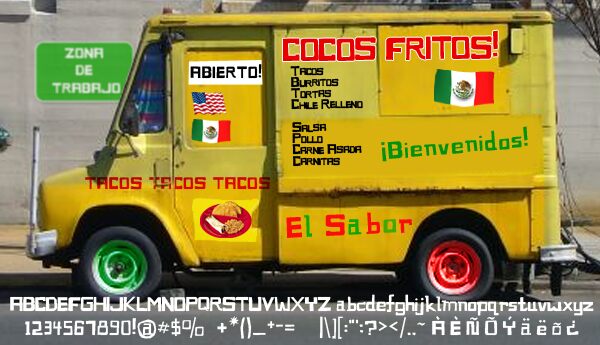
Cocosfritos by Kirk Shelton is a free cartoon display font whose squat, heavy letters look roughly cut by hand. Its blunt corners and uneven widths keep the line lively.
Comedy posters are its strongest setting, since the tightly packed forms turn a title into part of the gag and echo handmade show cards. The same irregular construction suits children's entertainment, colorful snack packaging, event graphics, and playful merchandise, where the lettering can act like a painted prop or a cut-paper emblem.